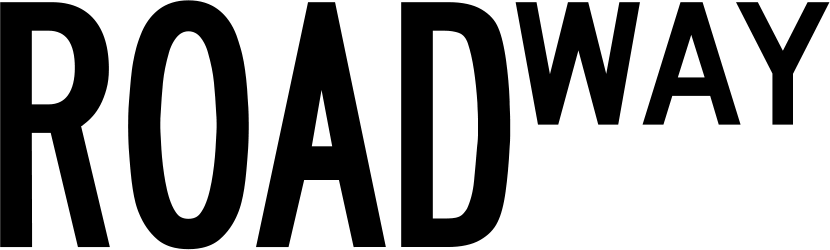
Roadway Font
The Roadway is exactly the font that all audiences expect you to use as a professional graphic designer in your content, such as billboards, diplomas, invitations, e-books, and website templates. This sans serif font, which does not support lowercase letters, adds a sense of intimacy, modernity, professionalism, and precision to your work.
Roadway is based on U.S. highway lettering observed on New York street signs. Two weights of capitals would often be used on the same sign, condensed for the main name, and a half-size regular superscript for ‘road’ or ’street’.
Roadway is a Small Caps font. The upper case consists of condensed capitals, the lower case consists of regular width small caps, sized at 50% and superscript.